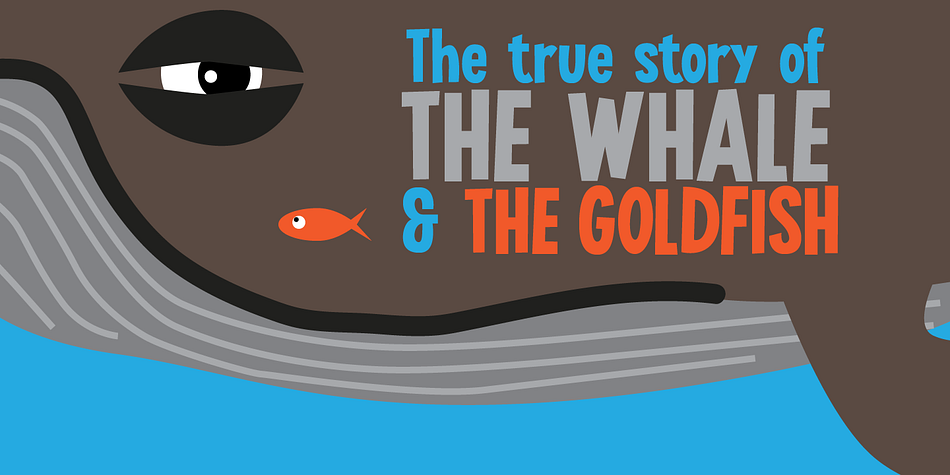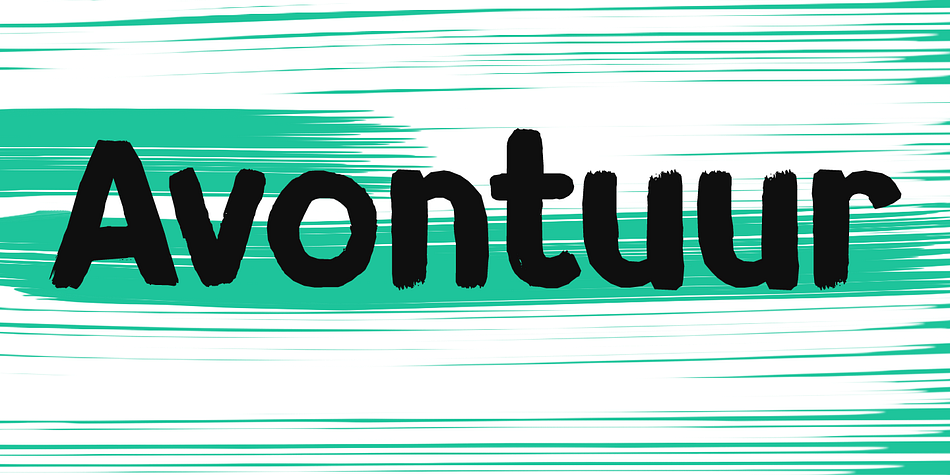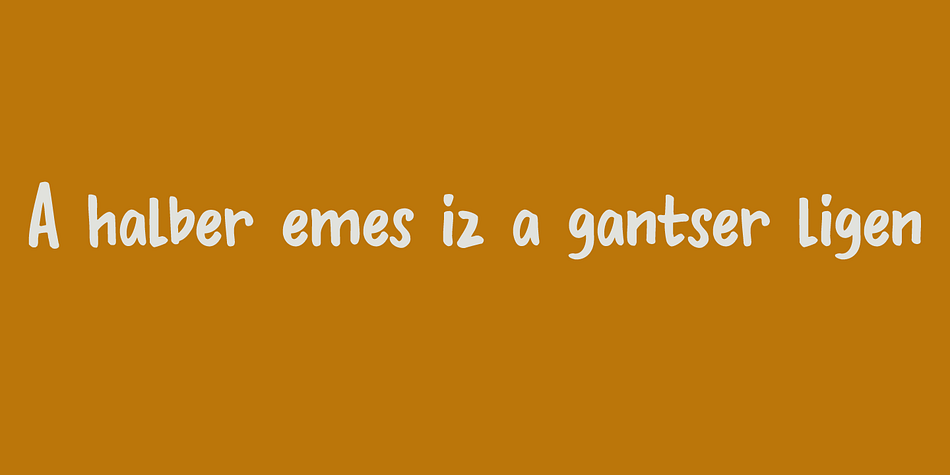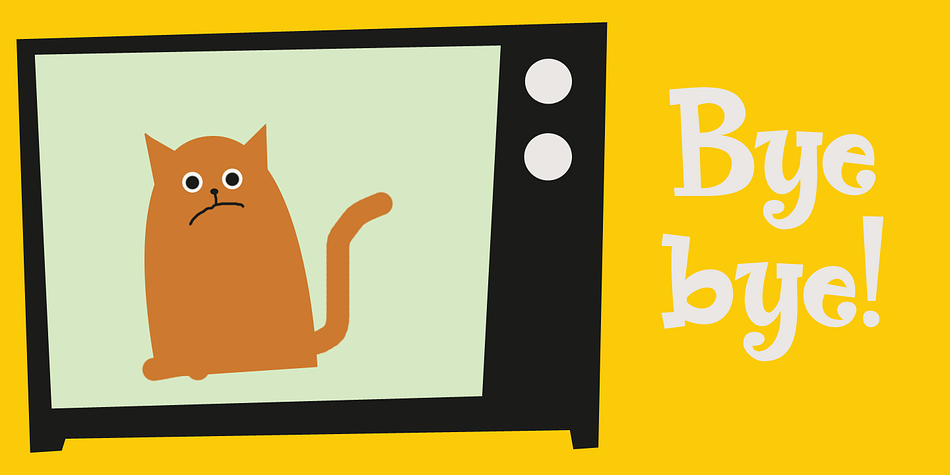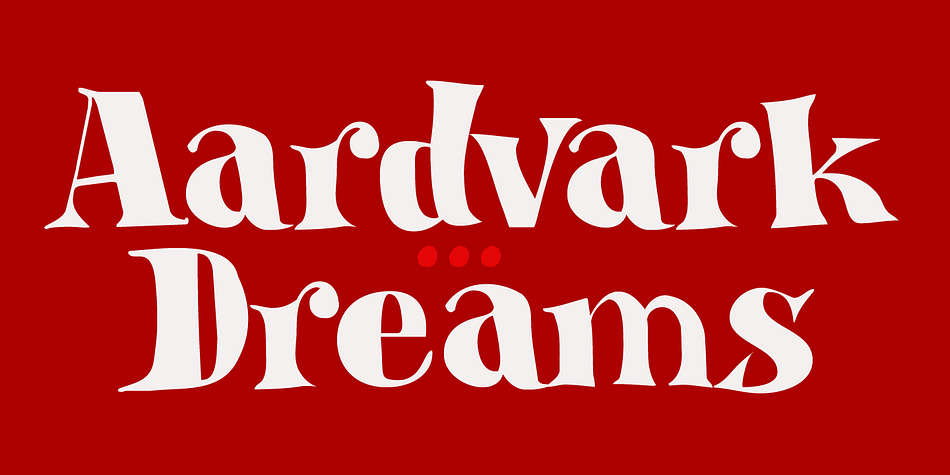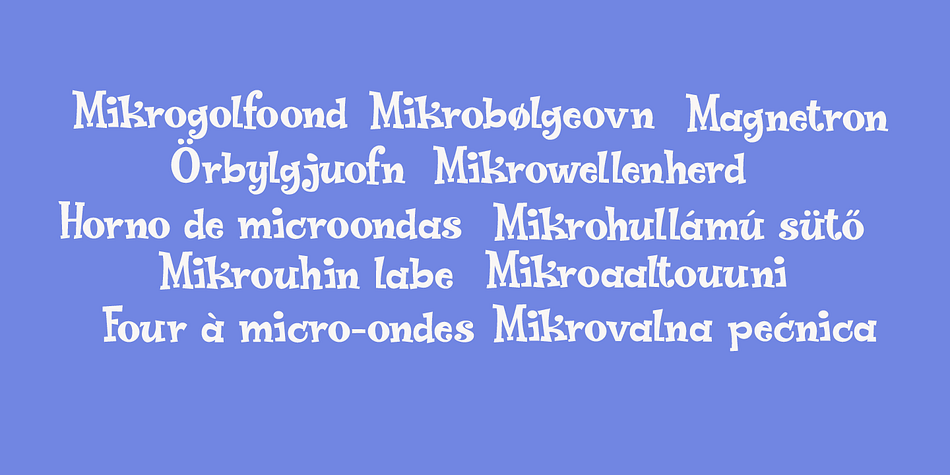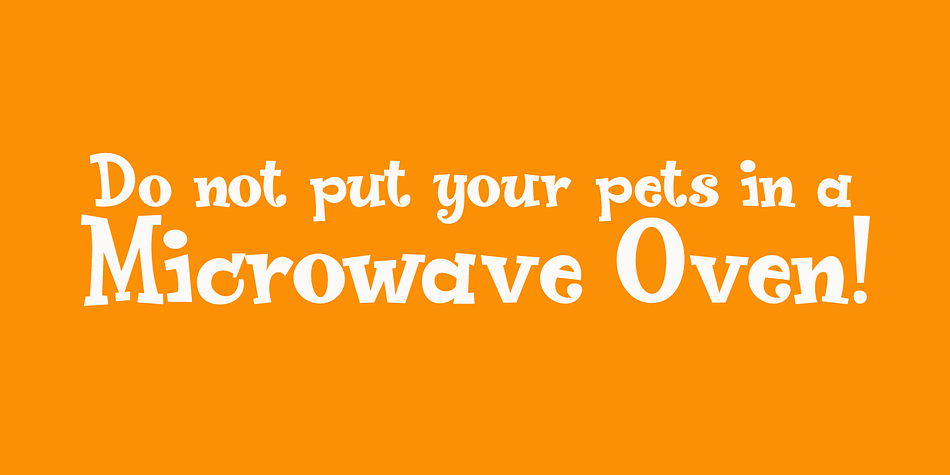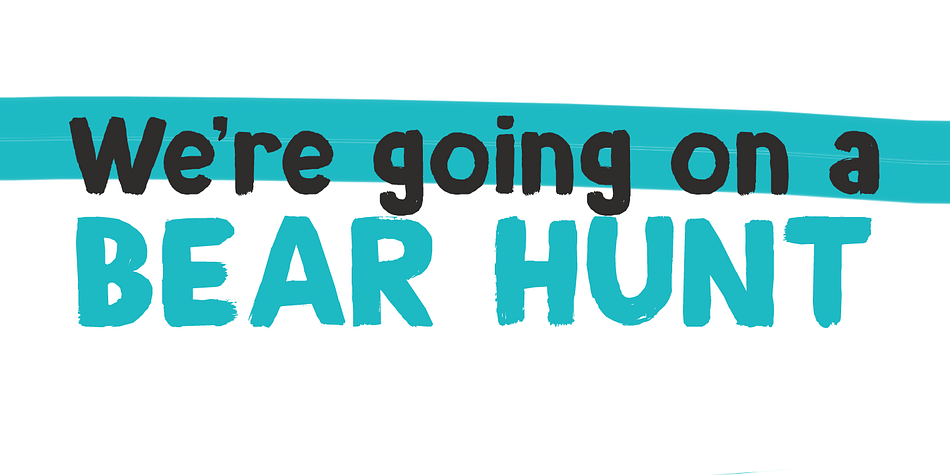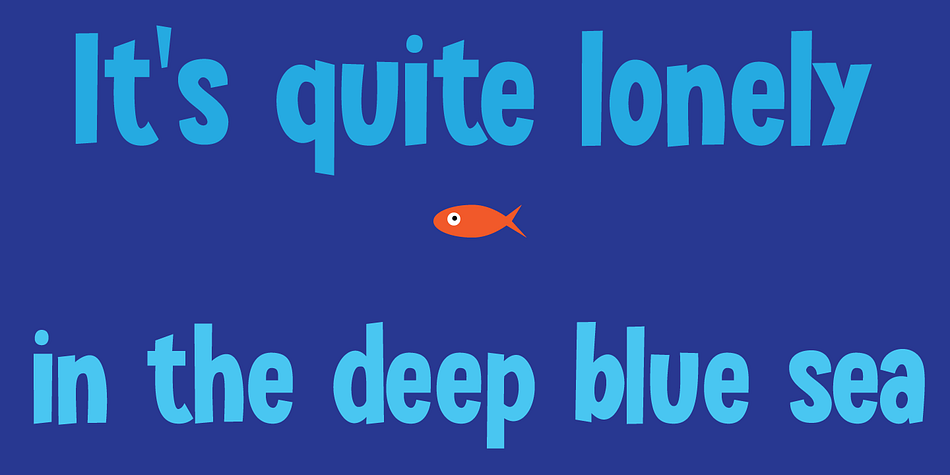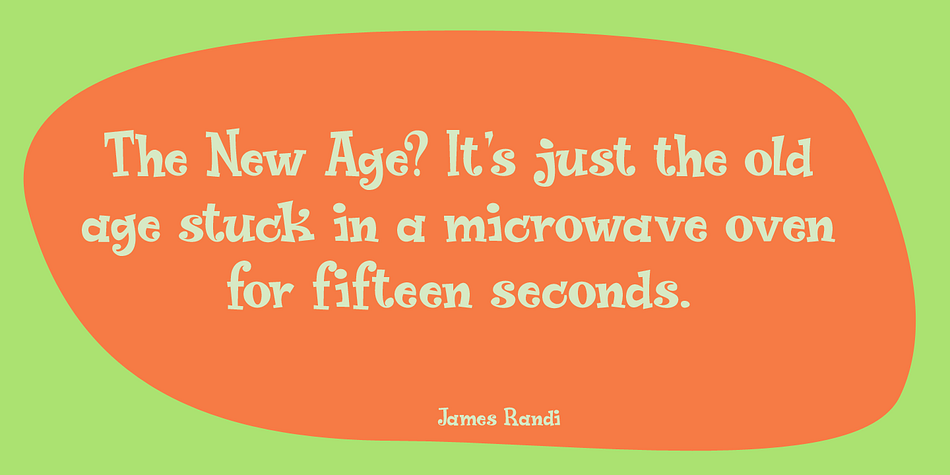
Designed by David Kerkhoff, Hanoded's Fonts For Kids is a multiple classification font collection published by Hanoded.
Hanoded’s Fonts For Kids is a true bundle of joy: 30 of my best kids’ fonts in a sweet little package at a bargain price. I am sure this will put a huge grin on your face!